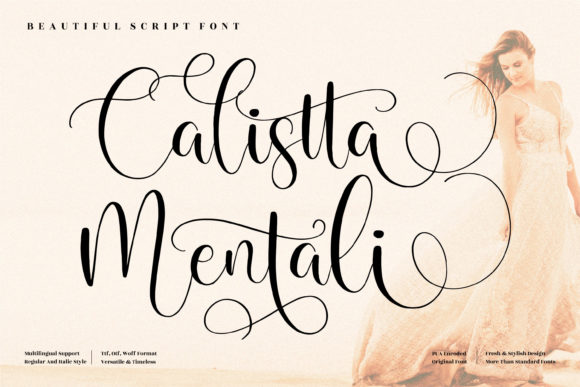
If you're on the hunt for a breathtaking font that oozes elegance, look no further than Calistta Mentali. This exquisite script font, meticulously crafted by the masterminds at Perspectype, is the epitome of grace and sophistication.
With its captivating curves and effortless flow, Calistta Mentali invites you to embark on a journey of artistic expression. Each letter dances across the page, forming words that shimmer with beauty. Whether you're creating captivating headlines or enchanting invitations, this font will elevate your designs to dizzying heights.
But Calistta Mentali is more than just a pretty face. Its versatility knows no bounds, making it the perfect choice for a wide array of projects. From fashion branding to editorial masterpieces, this font has the power to transform your words into works of art.
Imagine crafting a website title that captivates your audience from the moment their eyes meet the screen. Or envision a magazine cover that whispers elegance and allure. Calistta Mentali is your magic wand, transforming ordinary designs into extraordinary masterpieces.
And with its PUA encoding, you'll have access to a treasure trove of alternate glyphs and swashes at your fingertips. Experiment with flourishes and embellishments to create designs that leave an unforgettable impression.
So, why settle for mundane fonts when you can have the enchanting Calistta Mentali? This font is not just a tool; it's an invitation to express your creativity with passion and flair. Let Calistta Mentali guide your designs to greatness, where beauty and functionality dance in perfect harmony.